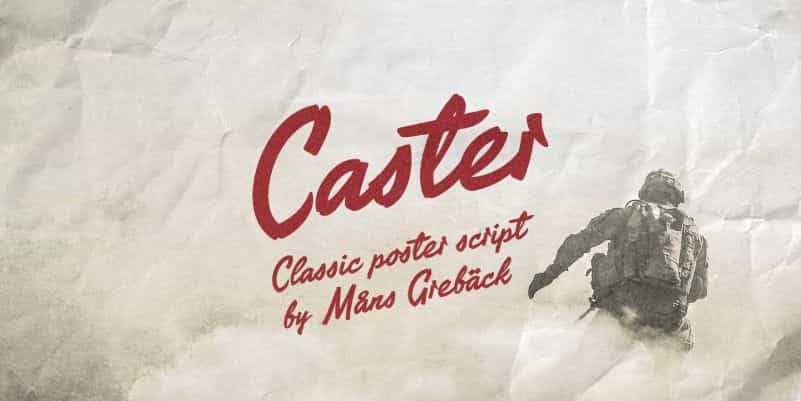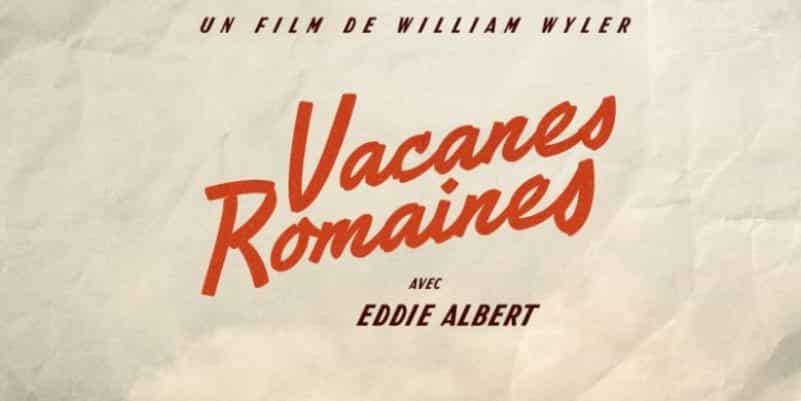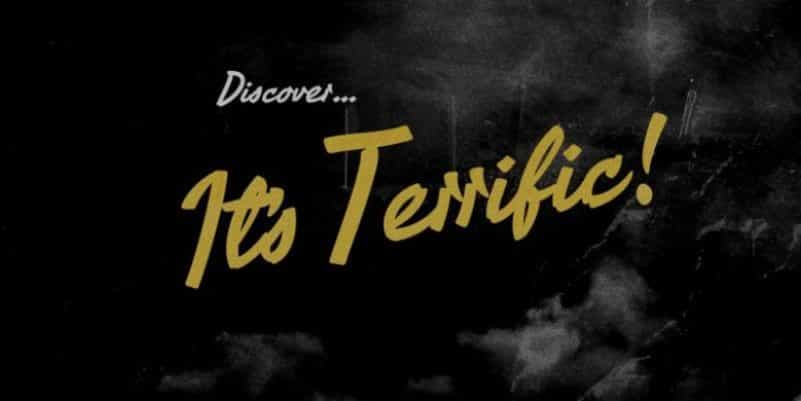
Caster Font is a hand-inked, ‘semi-script’ font with close spacing, and an amusing baseline that is not perfect. It is a good and strong, not to mention it has some roughness which makes it the best for creating organic, fluid typography on products, branding invitations fliers posters and more! Do not miss on the splatter freebies! It is just the supplement of the blackness.